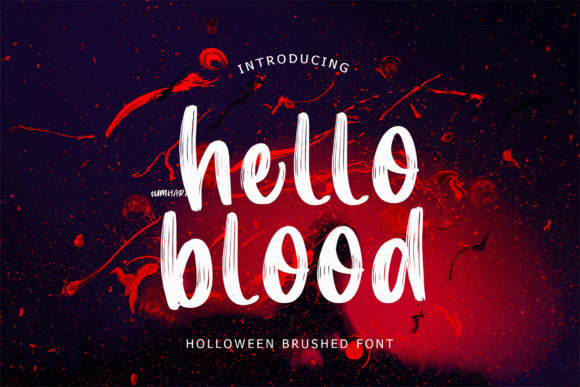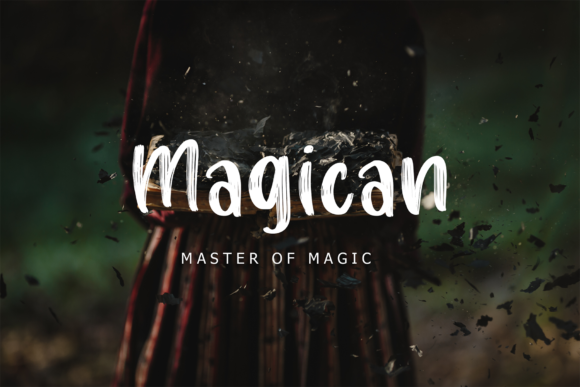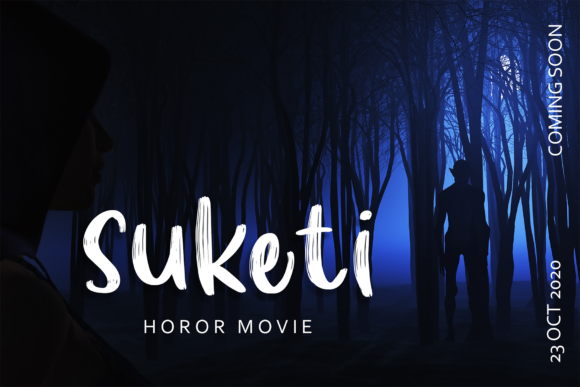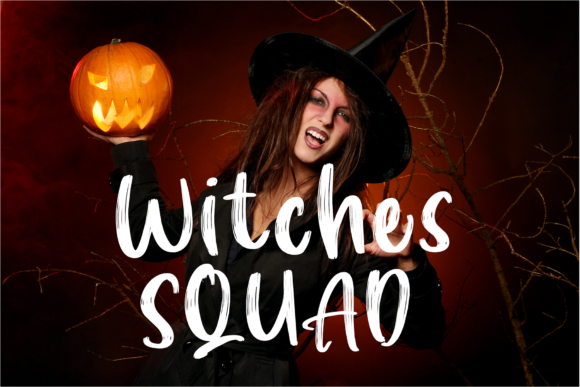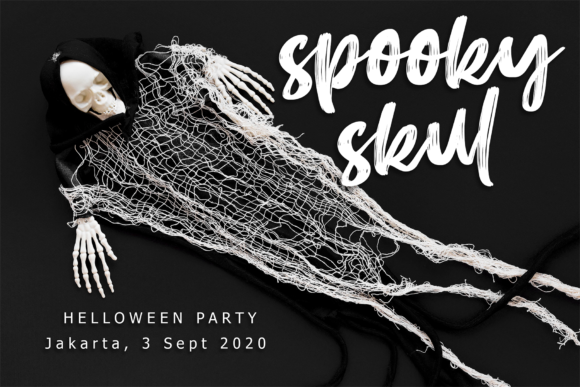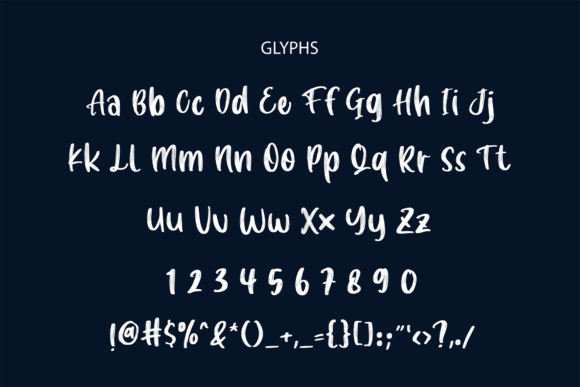
The Spark That Sets Your Design Apart
Have you ever been struck by an idea so brilliant, it refuses to leave your mind? That’s exactly what happened to us when we stumbled upon Hello Blood Font. This display font is more than just a tool – it’s a game-changer for designers who crave uniqueness and authenticity in their work.
Hello Blood Font is designed to elevate your creative ideas and make them stand out from the crowd. With its dazzling display, it’s perfect for adding a touch of drama and flair to your designs. Whether you’re working on a logo, poster, or social media campaign, Hello Blood Font is the perfect companion to bring your ideas to life.
For designers who value originality and are always on the lookout for fresh inspiration, Hello Blood Font is a valuable asset. Its versatility and bold style make it an ideal choice for a wide range of projects, from fashion to entertainment and beyond.
Hello Blood Font Key Features
- Unique Characteristics: The Hello Blood Font features a unique, hand-drawn design with bold lines and vibrant colors, making it ideal for creating eye-catching headlines and titles.
Hello Blood Font Review
Overall, I was quite impressed with the Hello Blood Font. The font’s unique and bold design ✨ really caught my attention, and it’s perfect for making a statement in any design project. The font is highly customizable, which is a big plus for designers who like to have control over every detail.
The font’s versatility is also a major advantage. It works well for both digital and print designs, and it’s easy to use in a variety of contexts. Whether you’re creating a logo, heading, or body text, Hello Blood Font is a great choice.
However, I do have a few concerns. One of the main limitations of the font is its limited character set ⚠️. While it includes a good range of letters and symbols, it’s not comprehensive, which may limit its usability in certain projects. Additionally, the font can be a bit overwhelming in large quantities, which may be a problem for designers who prefer a more subtle look.
- Unique and bold design
Tips for Getting the Most Out of Hello Blood Font
Use Hello Blood Font to add a touch of elegance and sophistication to your designs. Pair it with a bold font for contrast and to create visual interest. Experiment with different font sizes and colors to achieve the desired effect.
Hello Blood Font is perfect for:
Alternatives to Hello Blood Font
Great Vibes is a beautiful, handwritten script font that can add a touch of elegance and sophistication to your designs. It’s perfect for use in titles, quotes, and other text elements where a more personal and emotive feel is desired.
Great Vibes is similar to Hello Blood Font in its cursive style, but it has a more refined and polished look. It’s also more versatile and can be used in a wider range of design contexts.
Alex Brush is a elegant, brush script font that can add a touch of whimsy and charm to your designs. It’s perfect for use in titles, headings, and other text elements where a more playful and creative feel is desired.
Alex Brush is similar to Hello Blood Font in its cursive style, but it has a more delicate and refined look. It’s also more suitable for use in designs where a more feminine touch is desired.
Pacifico is a beautiful, modern script font that can add a touch of sophistication and elegance to your designs. It’s perfect for use in titles, headings, and other text elements where a more refined and polished look is desired.
Q: What is the recommended font size for optimal readability with Hello Blood Font?
For optimal readability, we recommend using Hello Blood Font at a minimum font size of 12 points. However, this can vary depending on the specific design requirements and the software application being used. Experiment with different font sizes to find the optimal setting for your project.